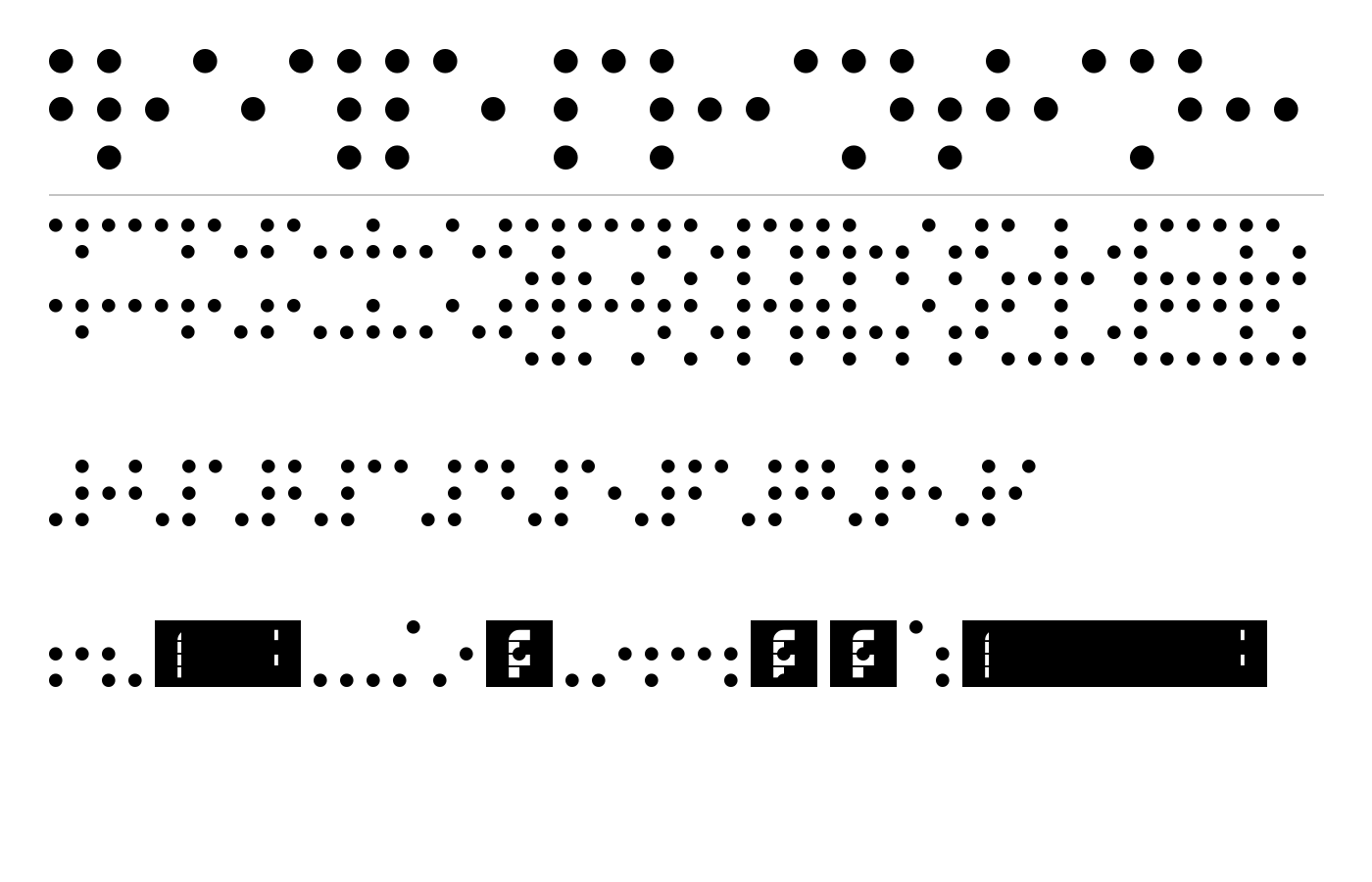
Braille Printing Font is a unique tactile typeface designed to represent the Braille writing system using clearly defined, evenly spaced raised dots. It features a consistent dot size and spacing that ensure readability for tactile use, with a minimalist and functional style ideal for accessibility-focused projects. This font works best for educational materials, accessible signage, and inclusive design, promoting communication for visually impaired users through its precise and purposeful form.
Braille Printing Font
About Braille Printing Font
| Font family | Braille Printing Font |
| Designer | pedro borges |